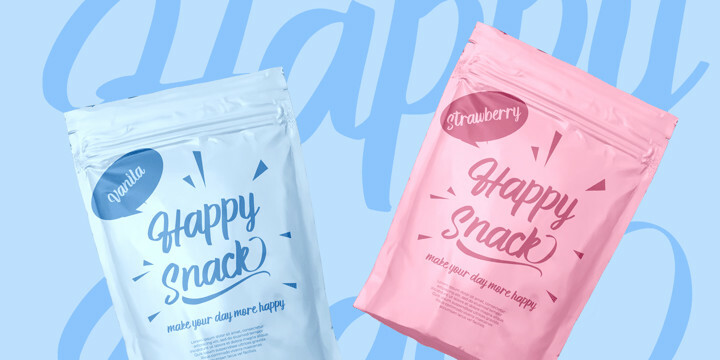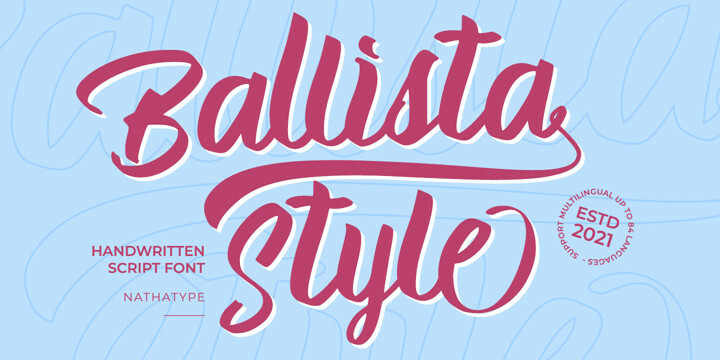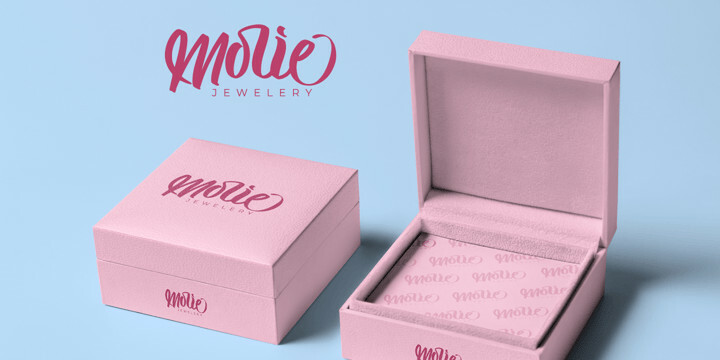
Ballista Style Font
Ballista Style FontIs your branding missing something that makes people going WOW? Have you thought about how you can add that touch of magic to your branding and projects? What if we told you that we have solution to maximize your designs?
Ballista Style-A Handwritten Font
Ballista Style is a relaxed and flowing handwritten font. It encapsulates the essence of playfulness and passion. Incredibly versatile, this font fits a wide pool of designs, elevating them to the highest levels. Add this font to your favorite creative ideas and notice how it makes them come alive. Use it for headings, logos, business cards, printed quotes, invitations of all sorts, cards, packaging, and your website or social media branding.
Our font always includes Multilingual Options to make your branding globally acceptable.